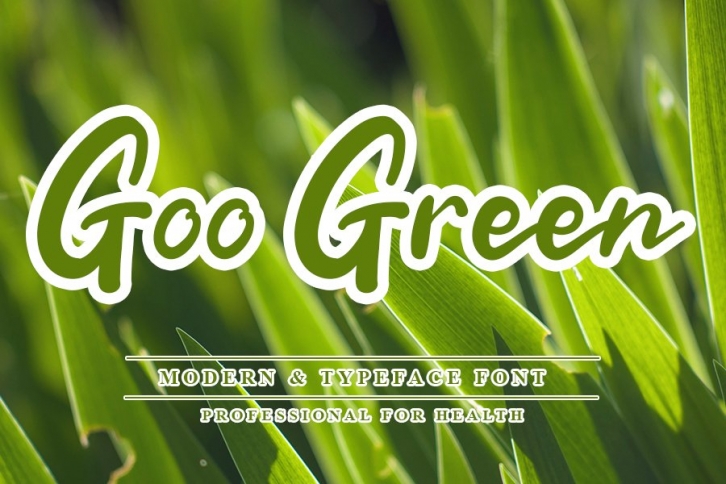
Goo Green is a gorgeous font that was realeased on October 27, 2020. The font can be used in many style contexts and design environments. Perfect for invitations, magazines, websites, logos, and more! It was designed by NYA Letter and the file size is 11.65 MB. Thanks for checking out this font!